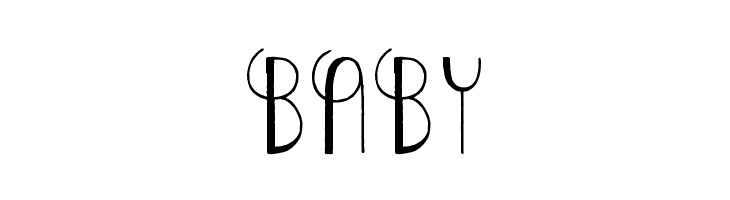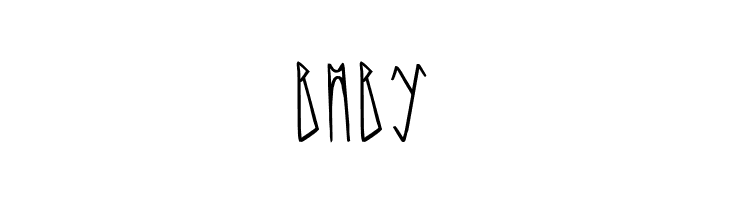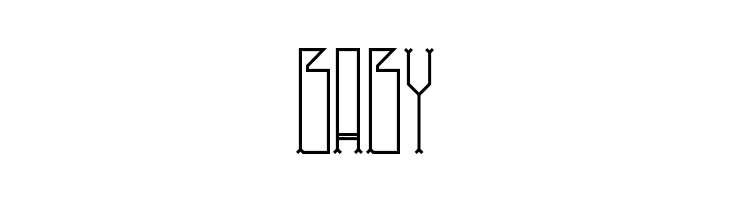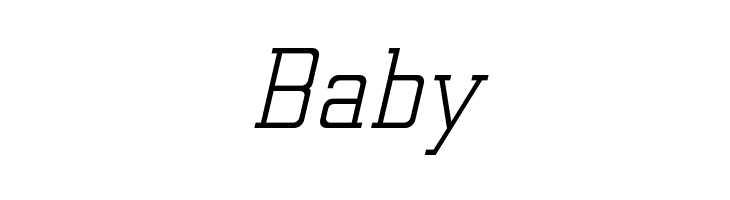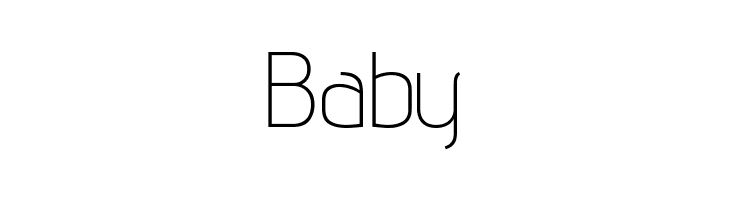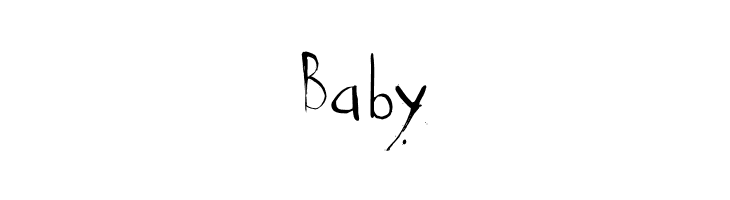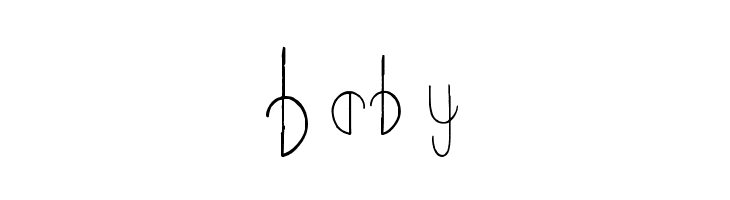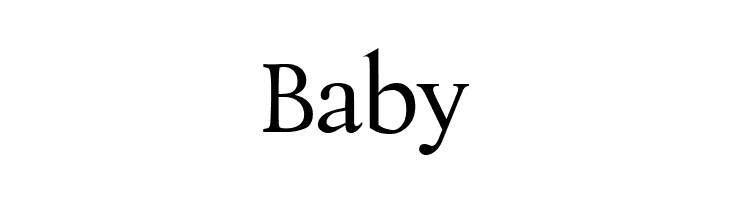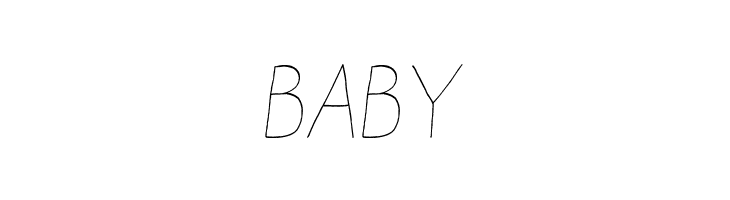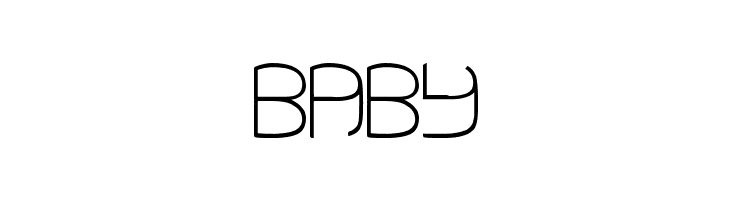
A classic serif font with elegant, elongated letterforms and refined serifs.
A tall, narrow, hand-drawn font with thin, elongated strokes.
A sleek, elongated font with a modern and minimalist design.
A tall, narrow font with elongated, thin characters for a sleek, modern look.
A whimsical and decorative font with elongated, curved strokes and playful flourishes.
A modern, abstract font with elongated, angular letterforms and decorative elements.
A flowing, cursive font with elegant, elongated strokes and a calligraphic style.
A modern, elongated font with thin strokes and tight spacing.
A modern, futuristic font with elongated, narrow characters and a unique gradient effect.
A modern, geometric font with elongated, narrow letterforms and consistent stroke width.
A modern, oblique font with sleek, elongated characters and consistent stroke width.
A sleek, modern font with thin, elongated characters and a minimalist design.
A sleek, modern italic font with narrow, elongated characters and medium contrast.
A whimsical, hand-drawn font with elongated, artistic characters.
A whimsical, hand-drawn font with elongated, thin characters and artistic flair.
A modern, elongated font with high contrast and narrow characters.
A whimsical and alien-like font with elongated, curved letterforms and bold numerals.
A classic serif font with elegant, elongated letterforms and pronounced serifs.
A modern, artistic font with elongated, geometric strokes and a futuristic vibe.
A whimsical, hand-drawn font with elongated, irregular letterforms.
A playful, quirky handwritten font with irregular, elongated letterforms.
A whimsical, flowing script font with elongated, irregular letterforms.
A dynamic, angular font with elongated characters and a modern edge.